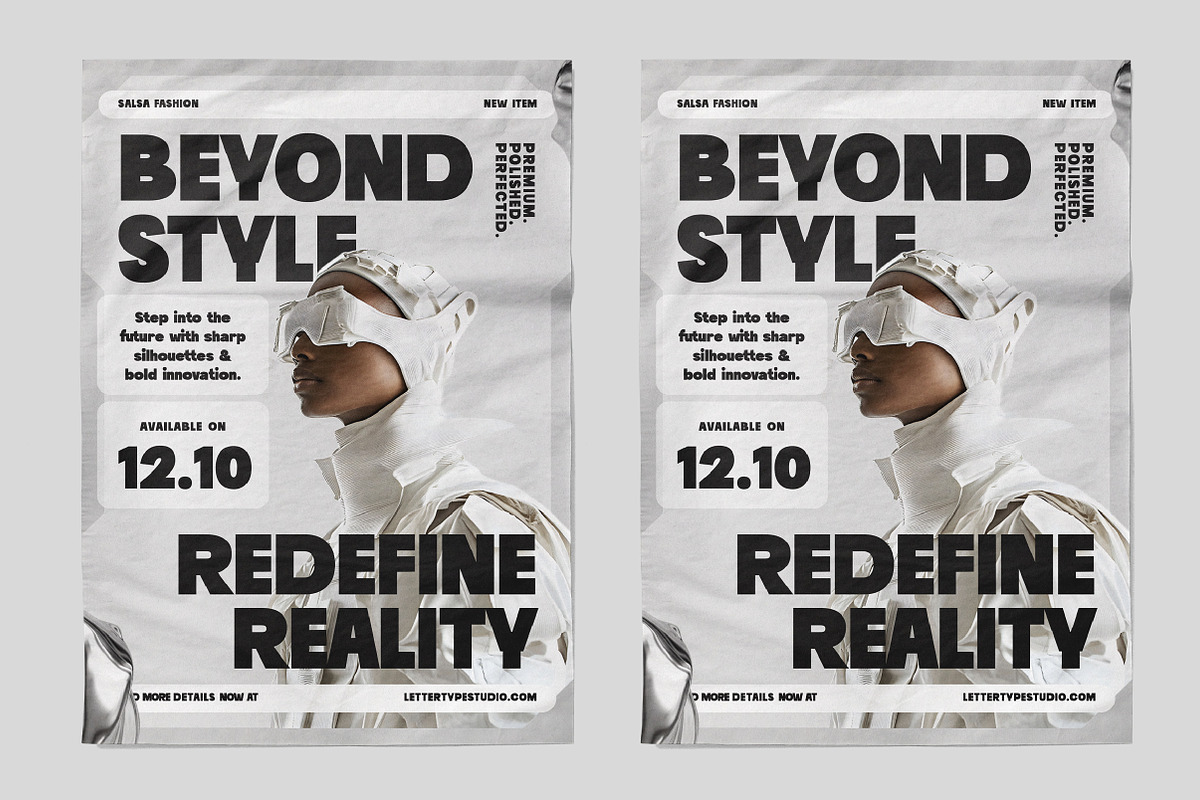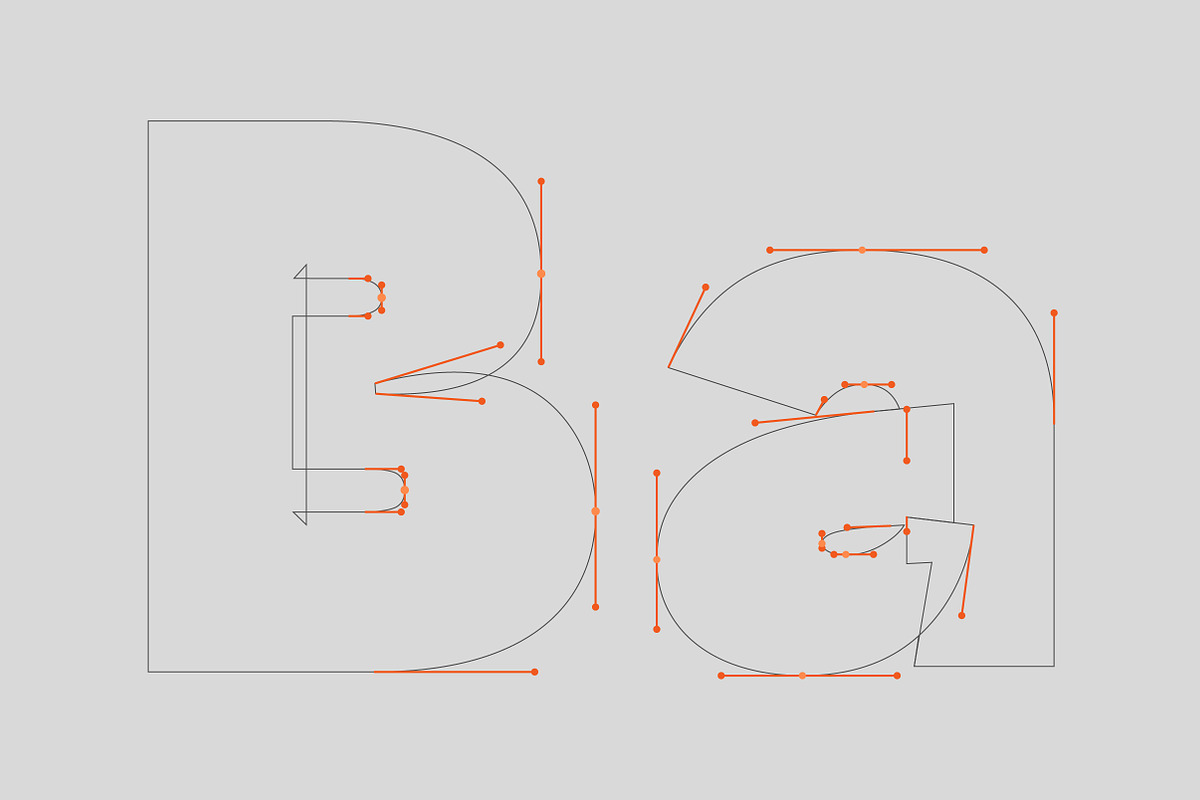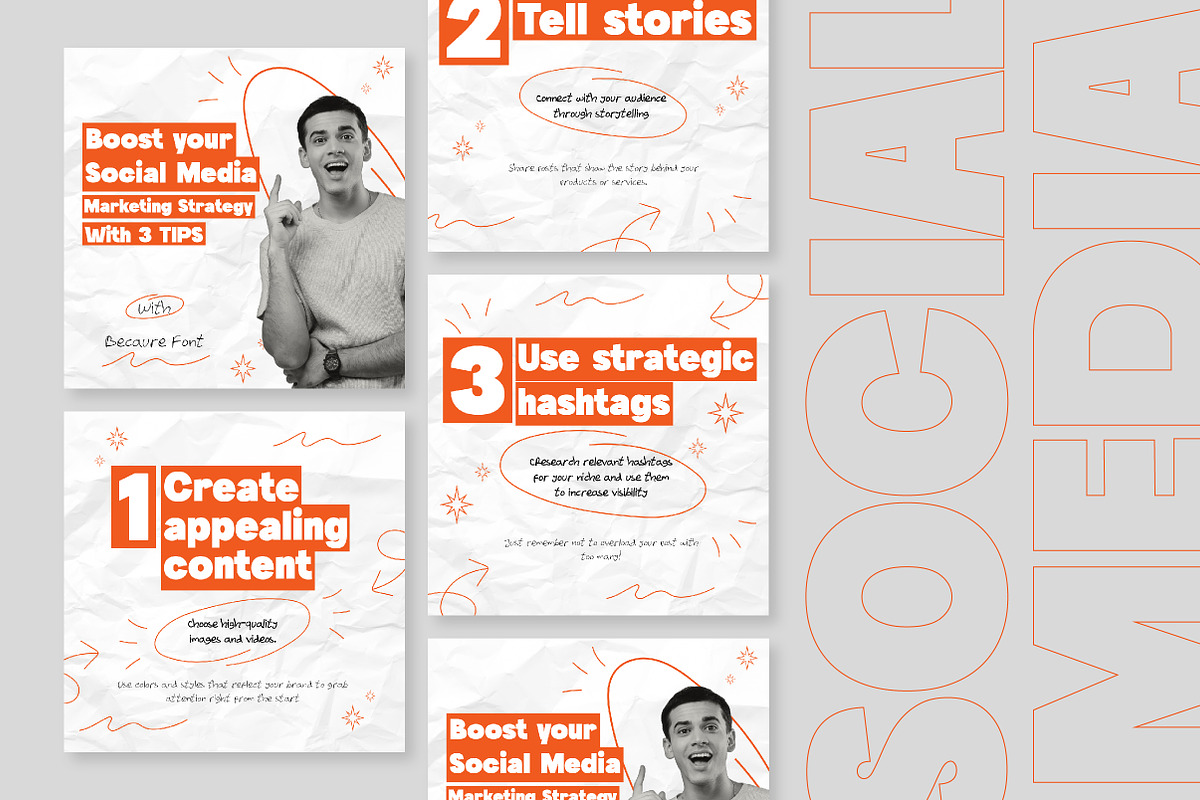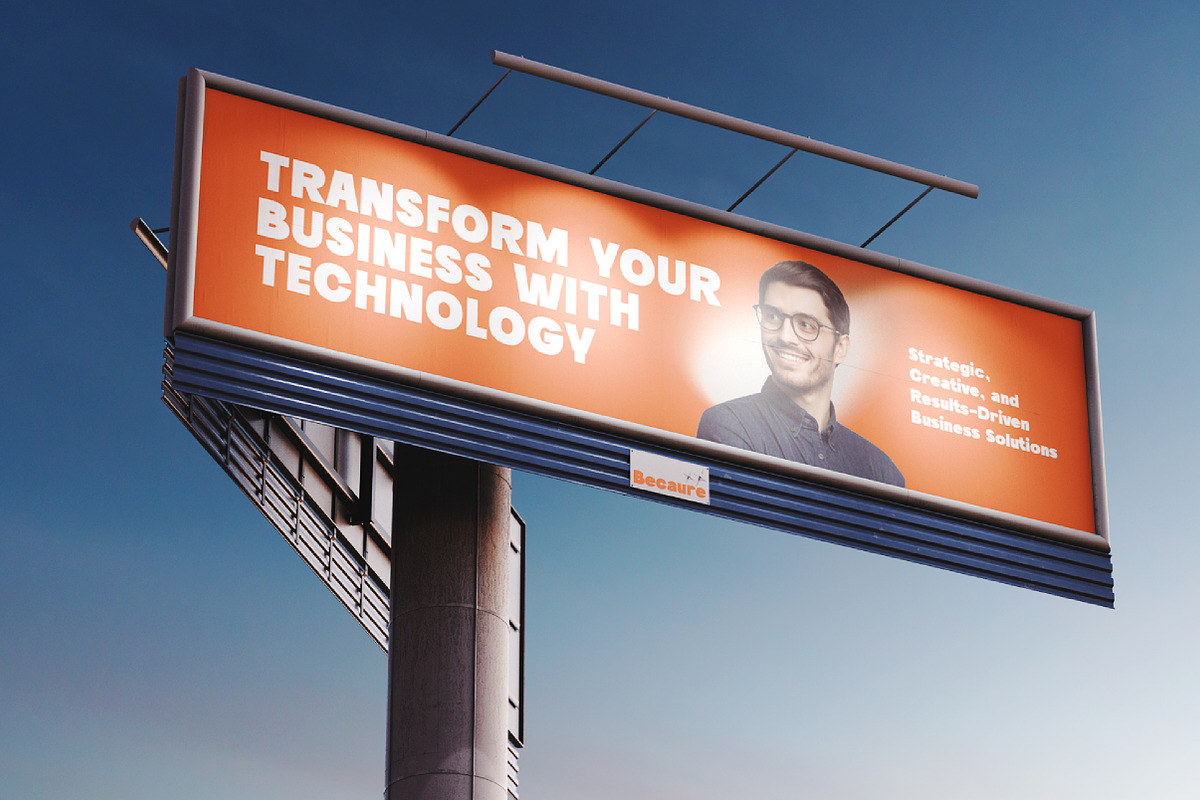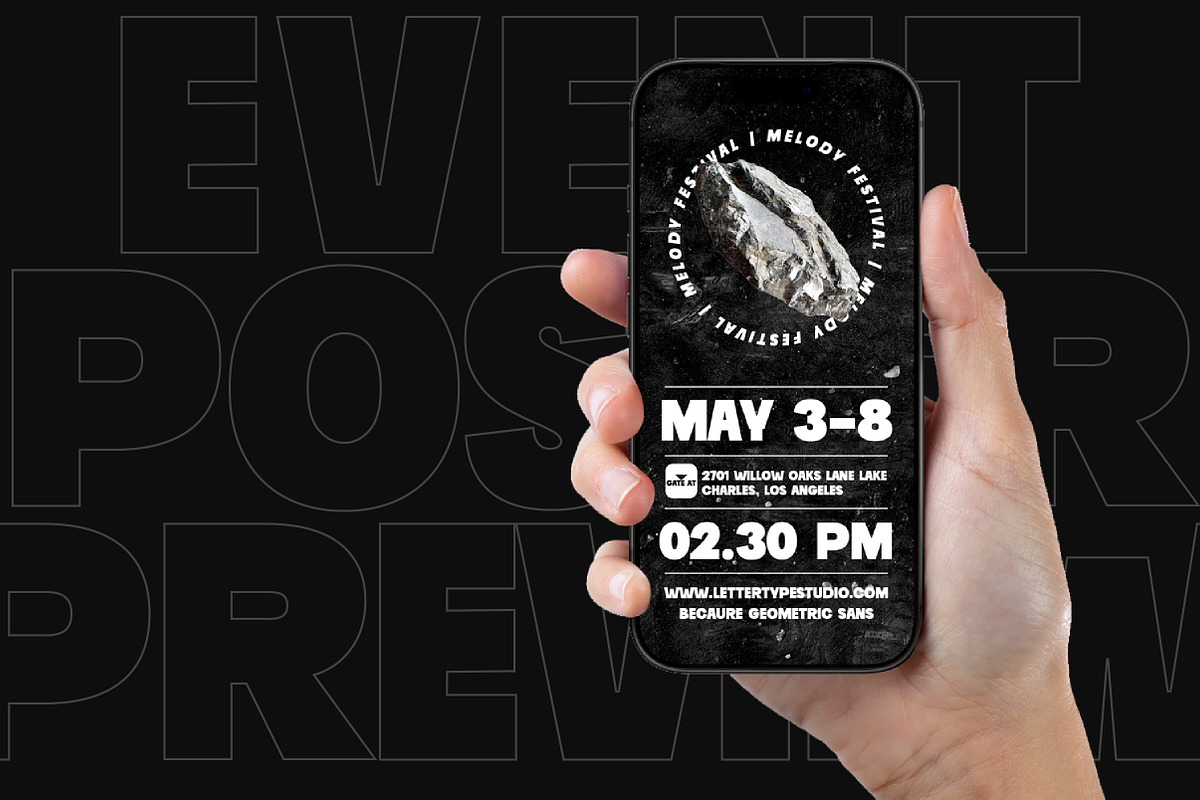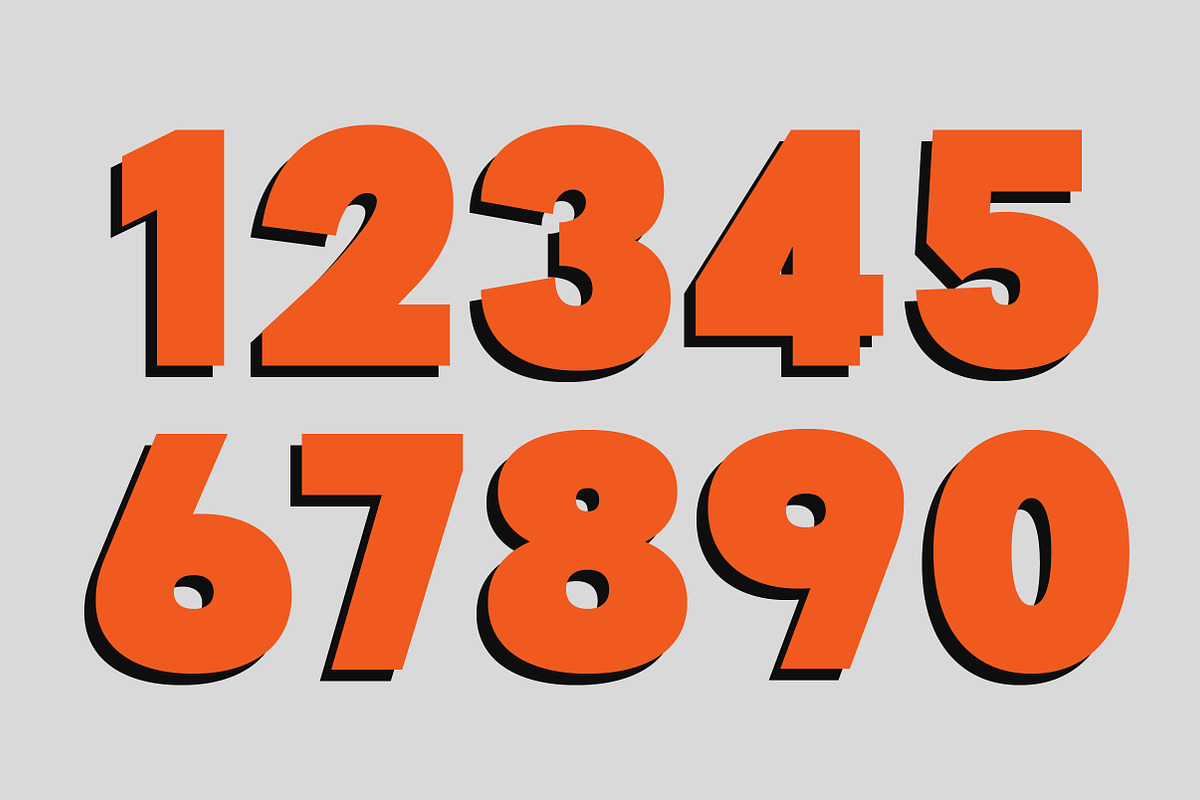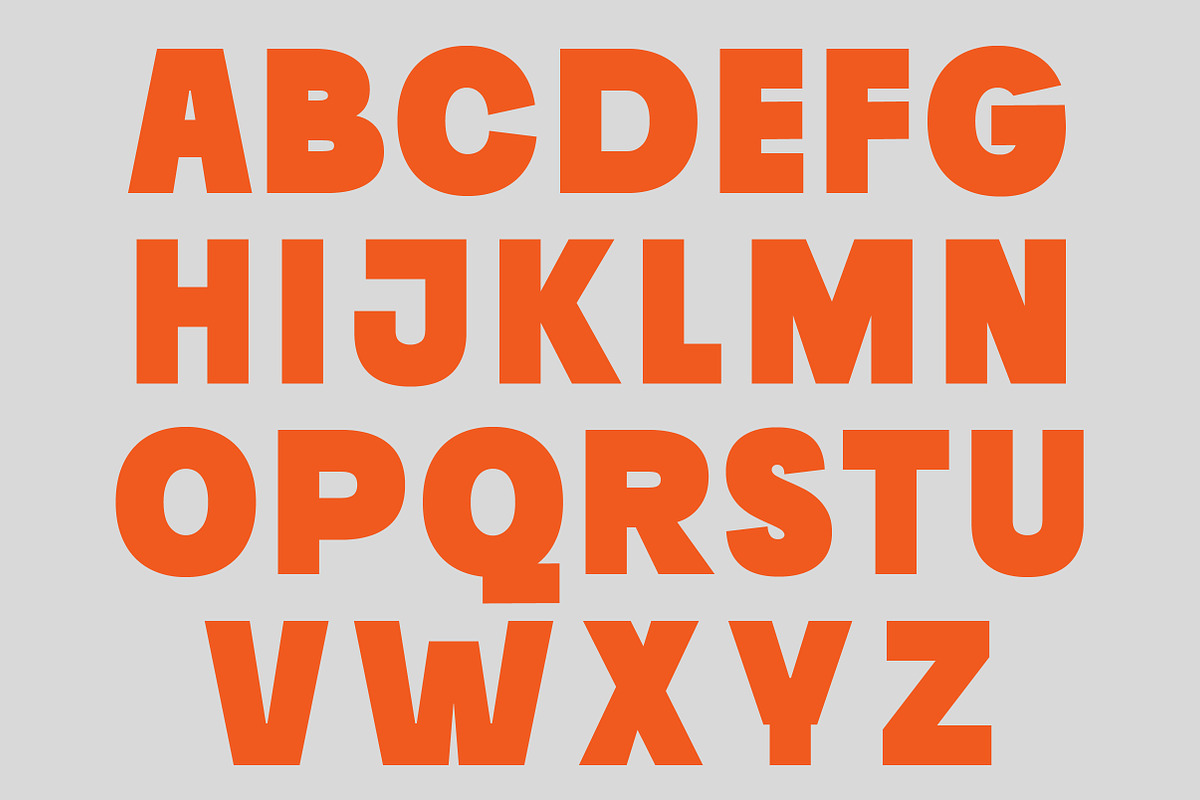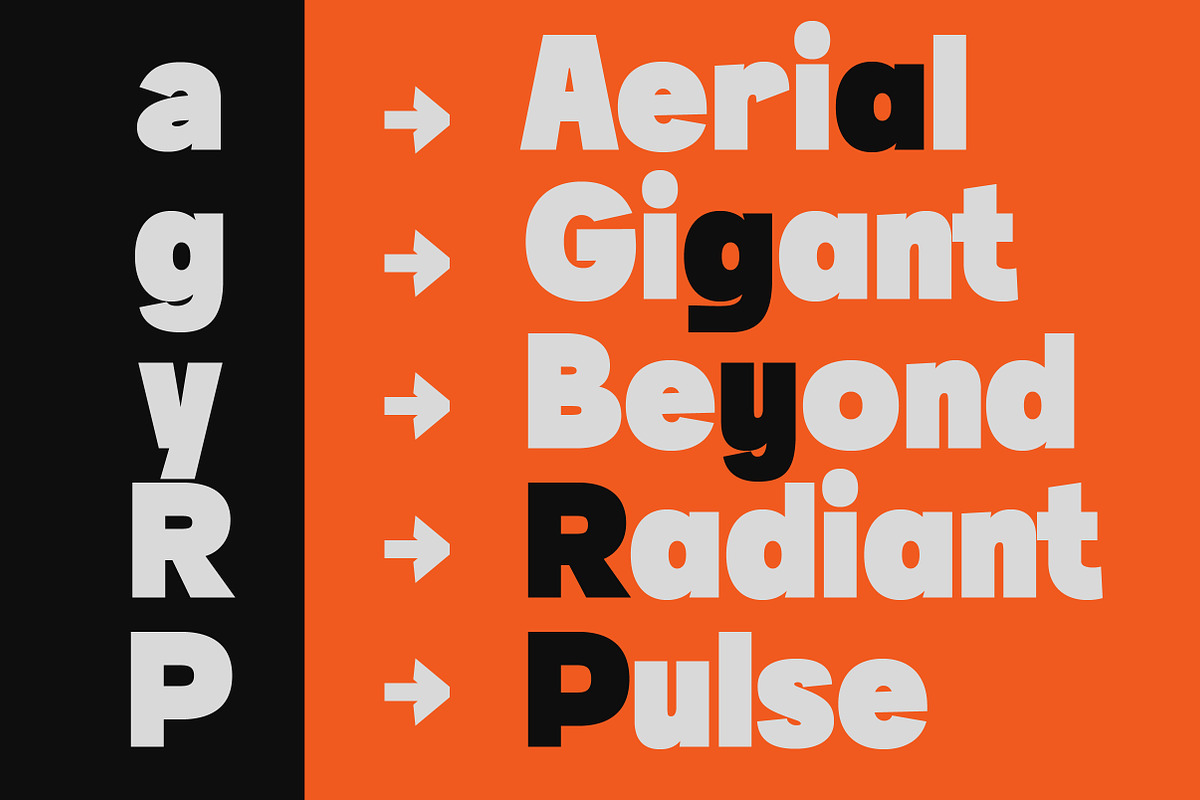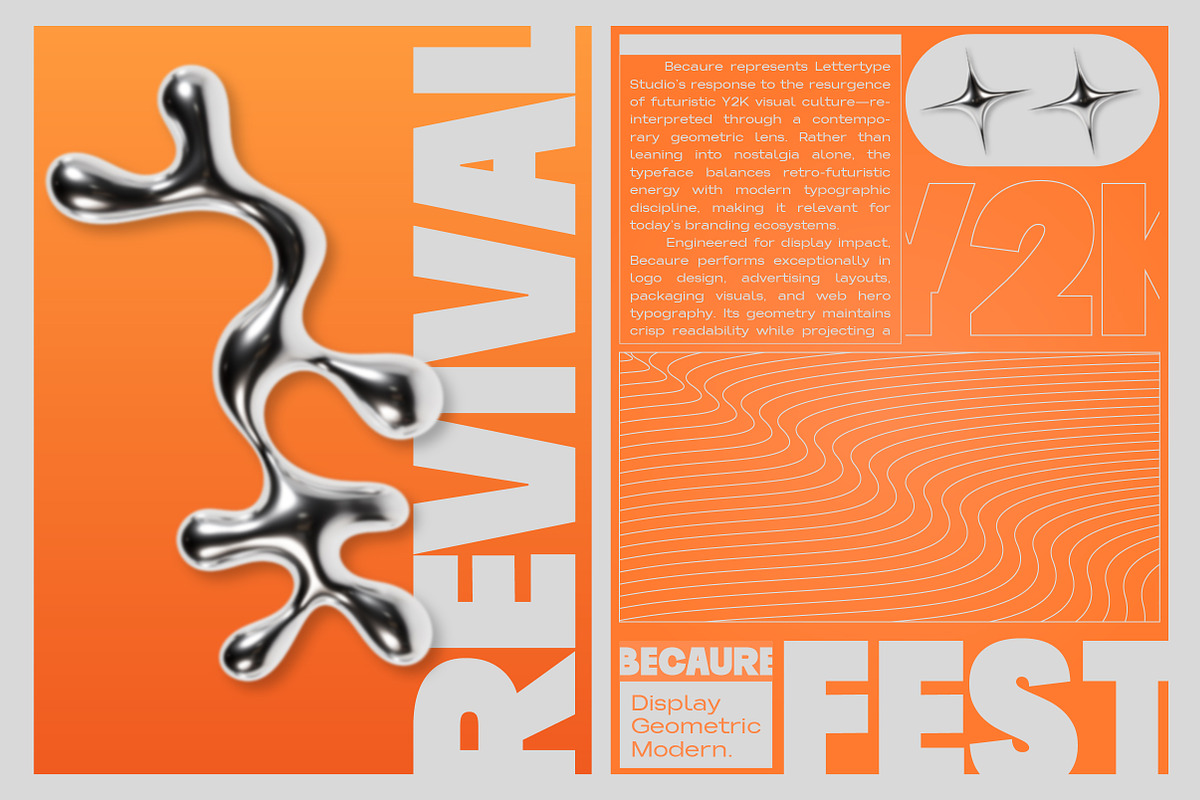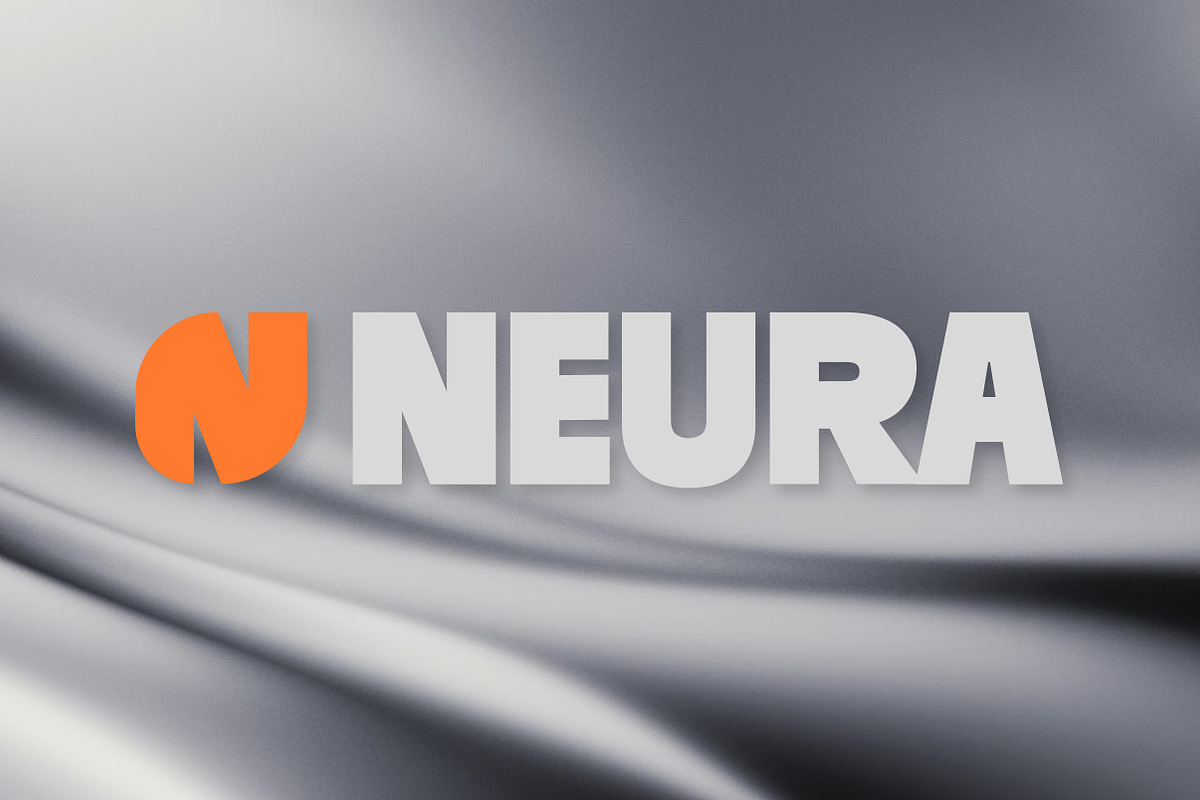
Becaure a Modern Geometric Sans
Becaure is a modern geometric sans serif typeface designed to capture clarity, structure, and contemporary visual energy. Built from precise circular geometry and balanced proportions, the typeface delivers a clean yet commanding tone—ideal for designers seeking a modern voice that remains highly legible and brand-ready.
Infused with subtle Y2K revival aesthetics, Becaure thrives in high-visibility environments such as campaign headlines, digital posters, and brand activations. Its structured forms provide professional reliability, while its display presence ensures strong visual memorability across both print and screen media.
Becaure Features:
- 2 Styles
- Upright & Oblique
- Alternates: a, g, y, P & R (ss01) & Extra Currency (฿,₭, ₱, ₸, ₹, ₺, & ₽)
- Extra glyphs: arrows (← ↑ → ↓ ↔ ↕ ↖ ↗ ↘ ↙)
- 469 Glyphs Total
- 270+ Languages Supports
- Branding & Visual Identity
- Campaign & Advertising Design
- Posters & Event Promotions
- Logo & Wordmark Creation
- Digital Hero & Web Headlines